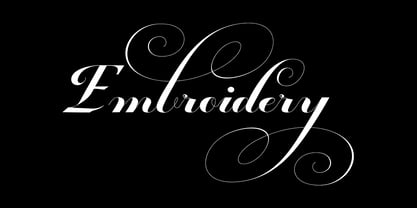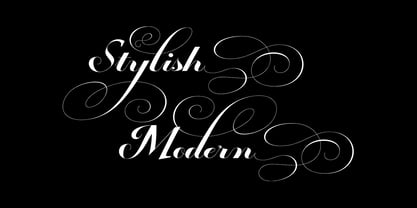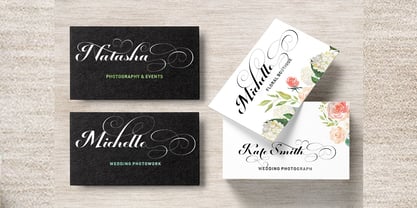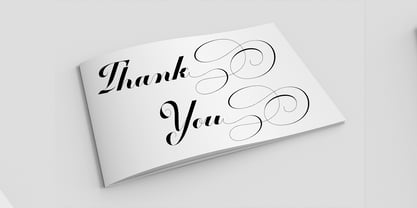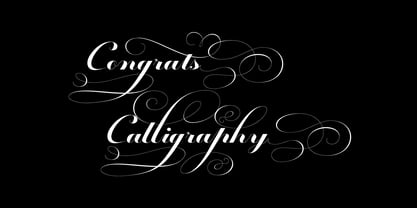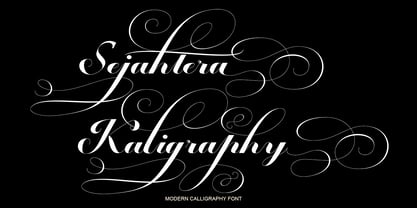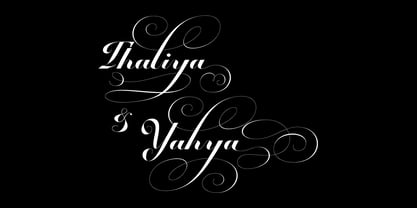
Sejahtera Kalligraphy
by Shape Studio
The Sejahtera Kalligraphy Font Family was designed by Teuku Saifullah and published by Shape Studio. Sejahtera Kalligraphy contains 1 styles. More about this family
Sejahtera Calligraphy Font is a new modern script calligraphy font with an irregular baseline. Trendy and feminine style.Sejahtera Calligraphy Font Script looks lovely on wedding invitations, thank you cards, quotes, greeting cards, logos, business cards and more. Perfect for using in ink or watercolour. Including initial and terminal letters, alternates, ligatures and multiple language support.Files included:
Designers: Teuku Saifullah
Foundry: Shape Studio